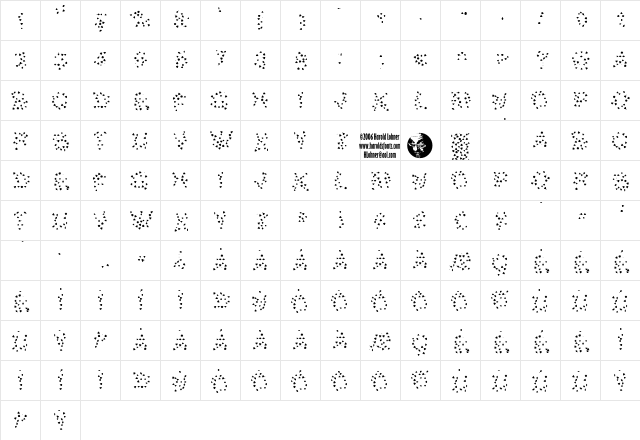
GaudiYellow Tile Regular Free Font
GaudiYellow Tile Regular
Design Context for GaudiYellow Tile
GaudiYellow Tile is a composed and adaptable typeface that performs quietly and consistently across a wide range of design contexts.